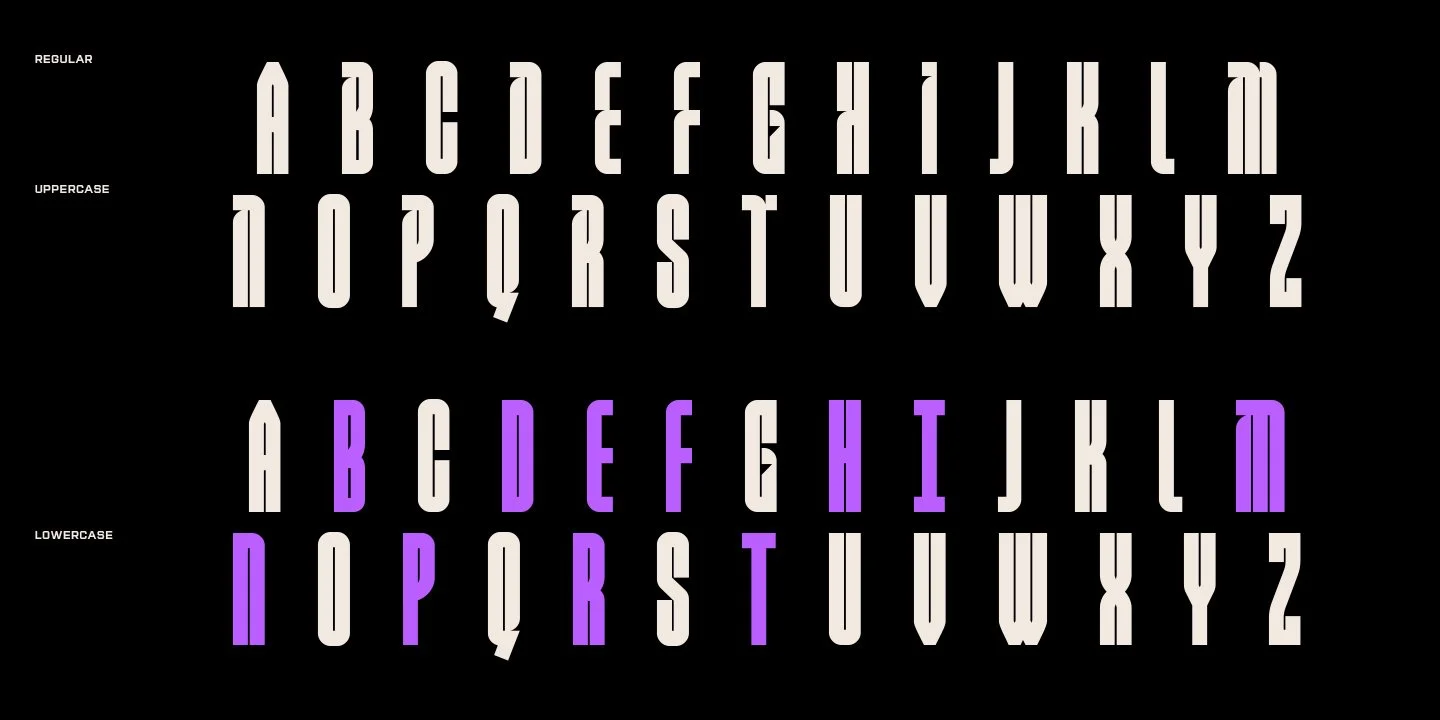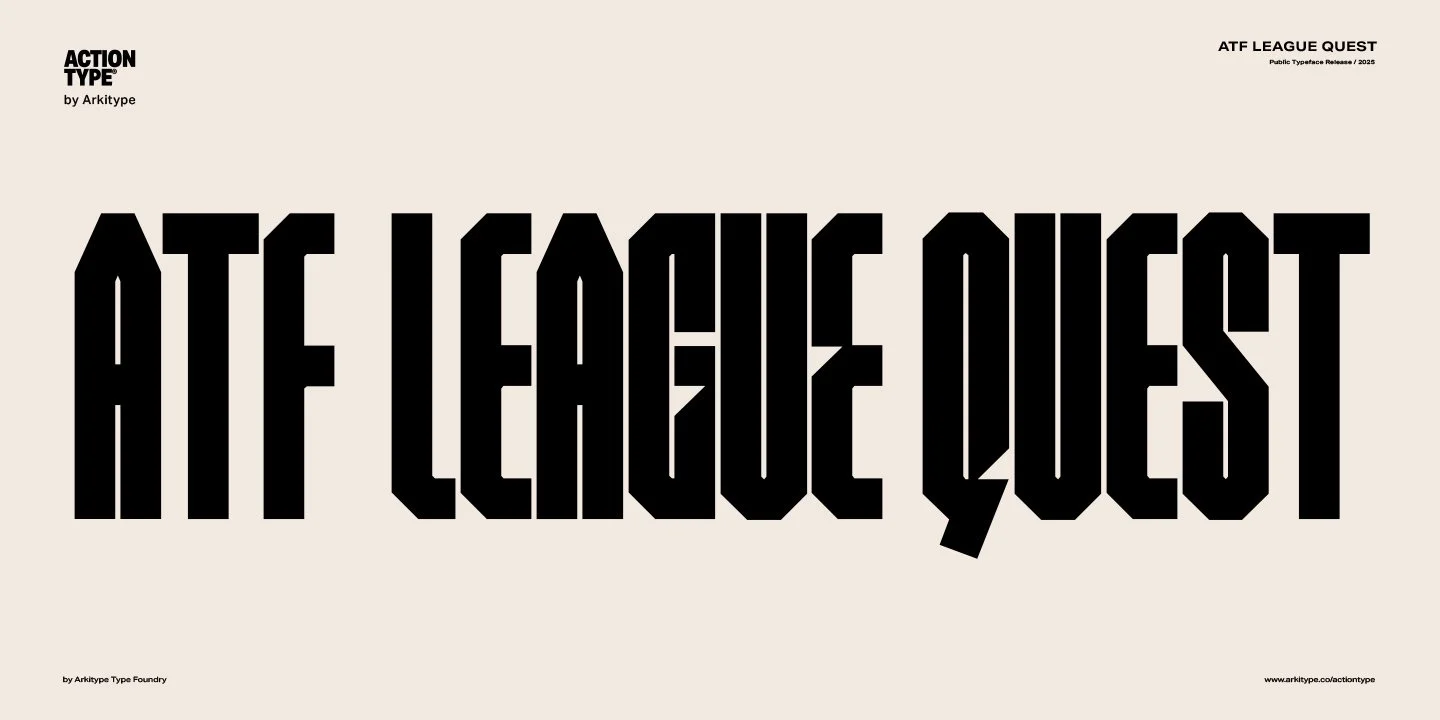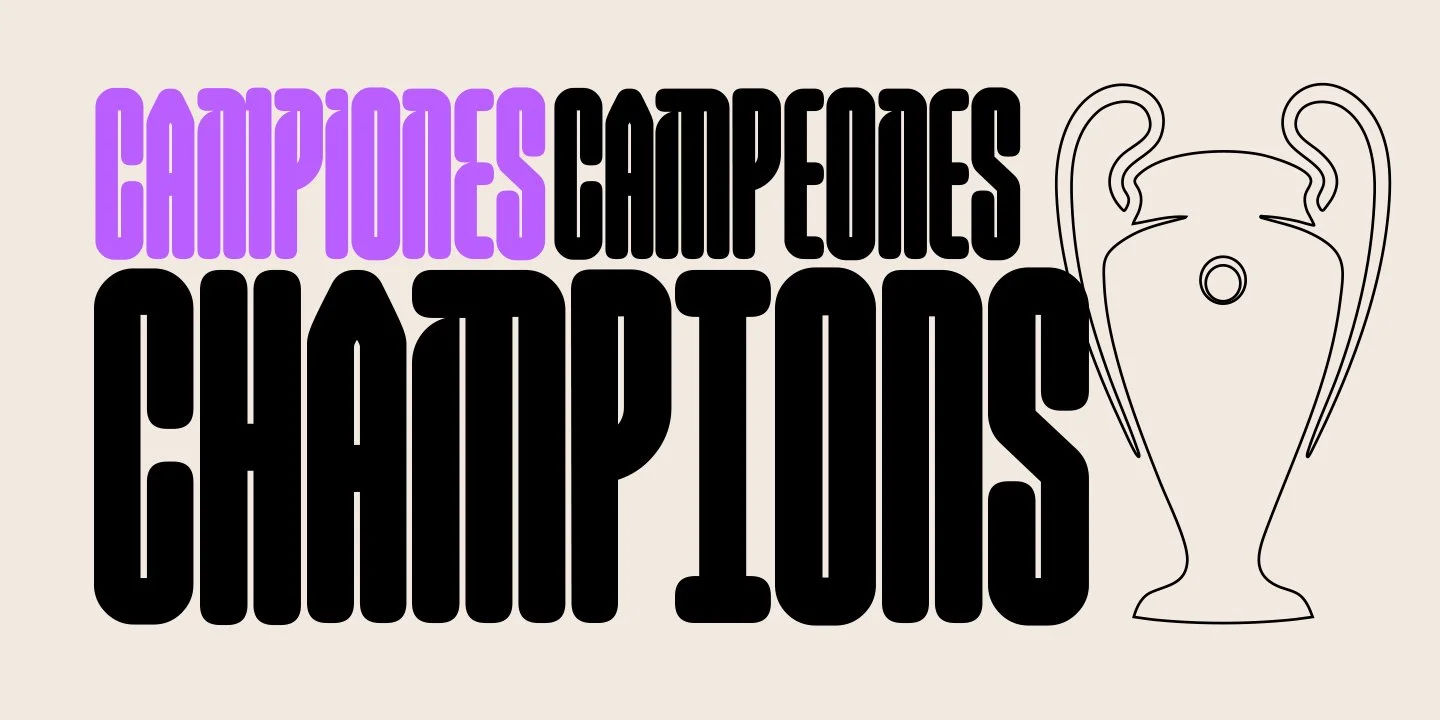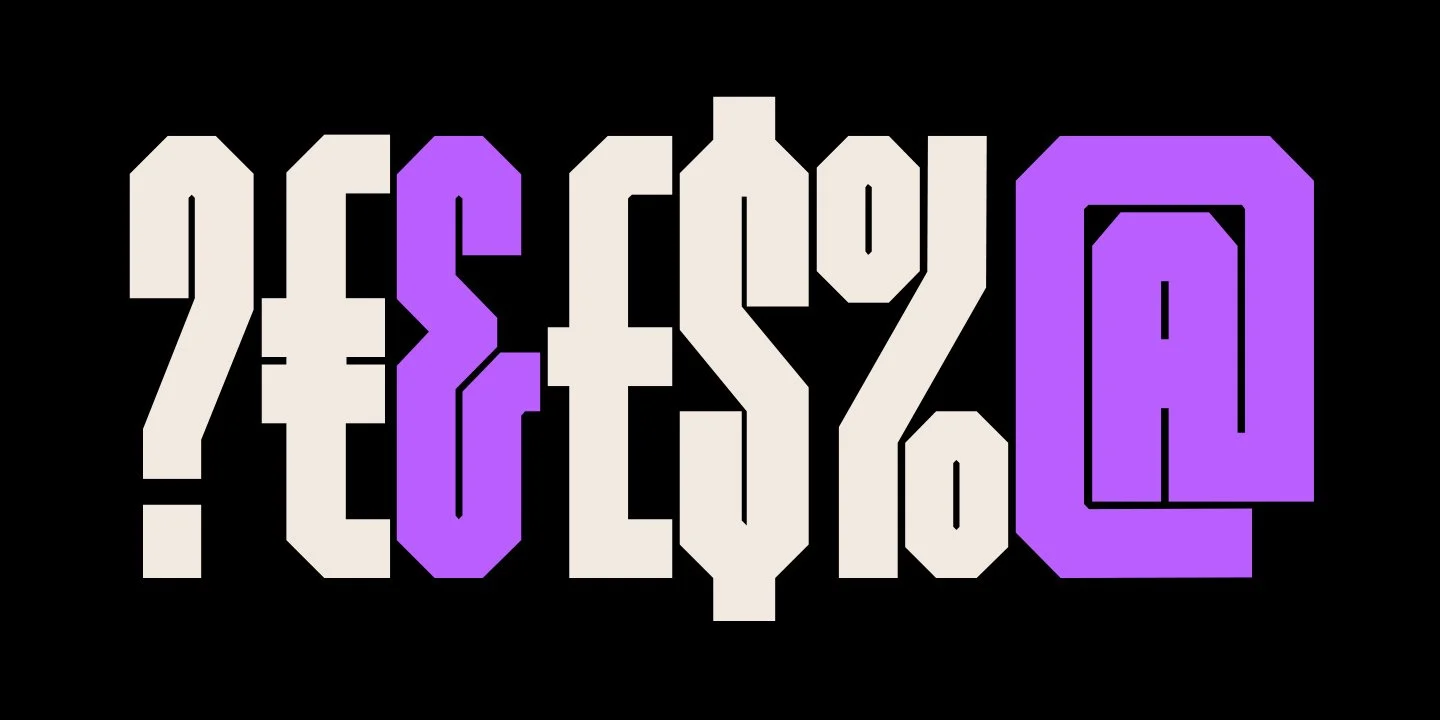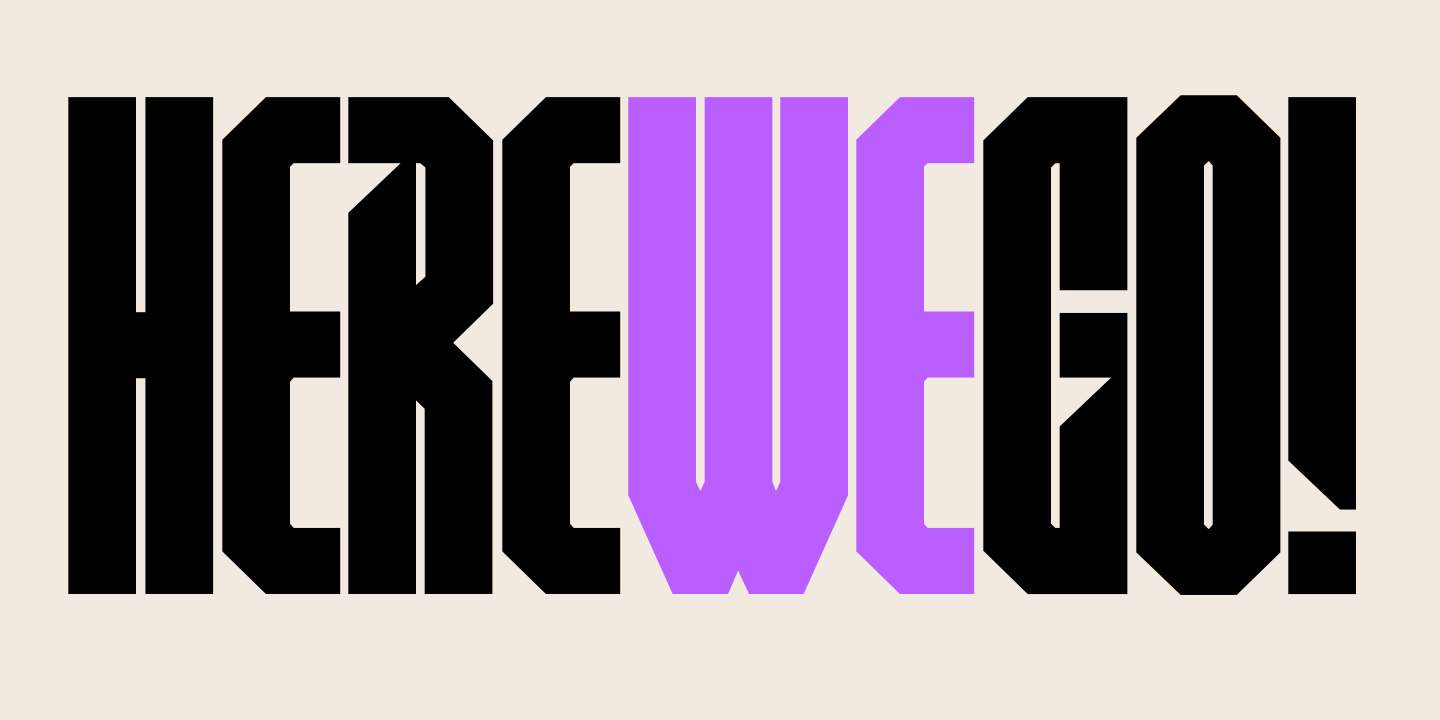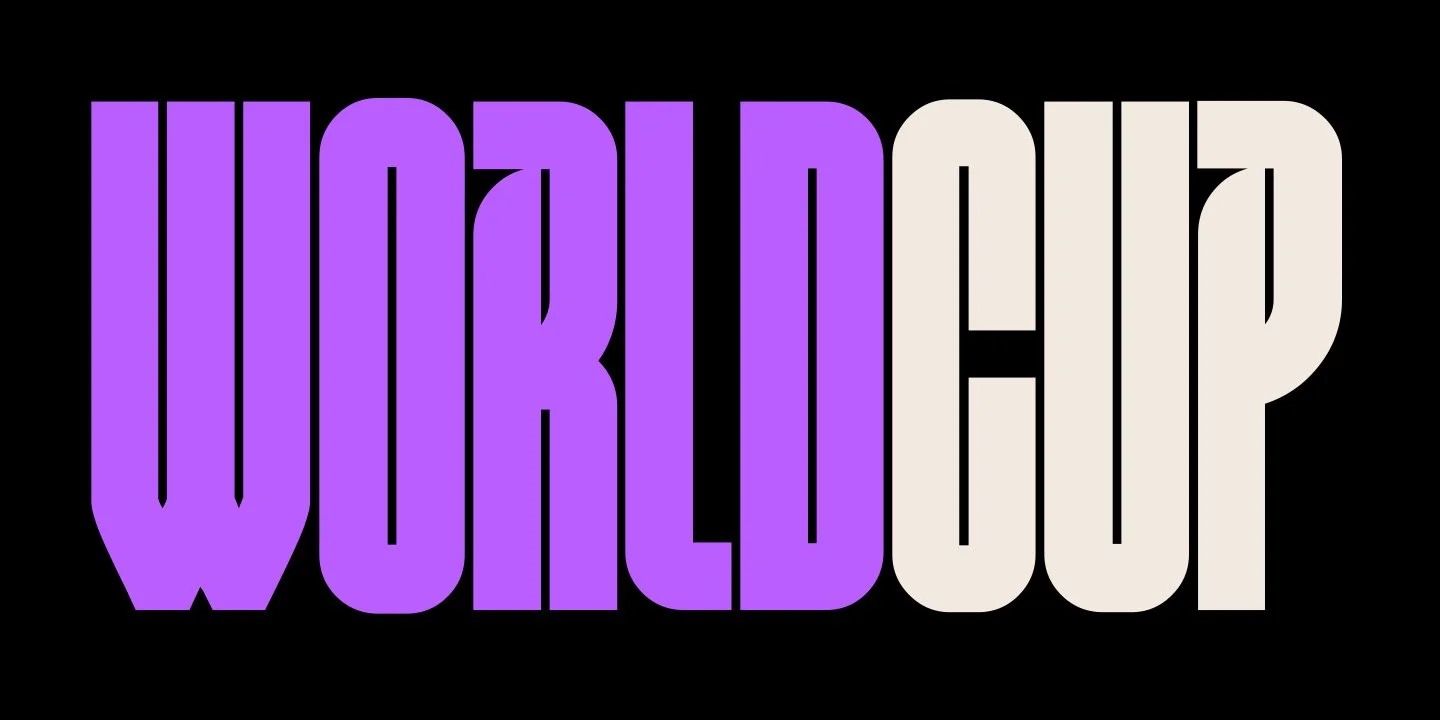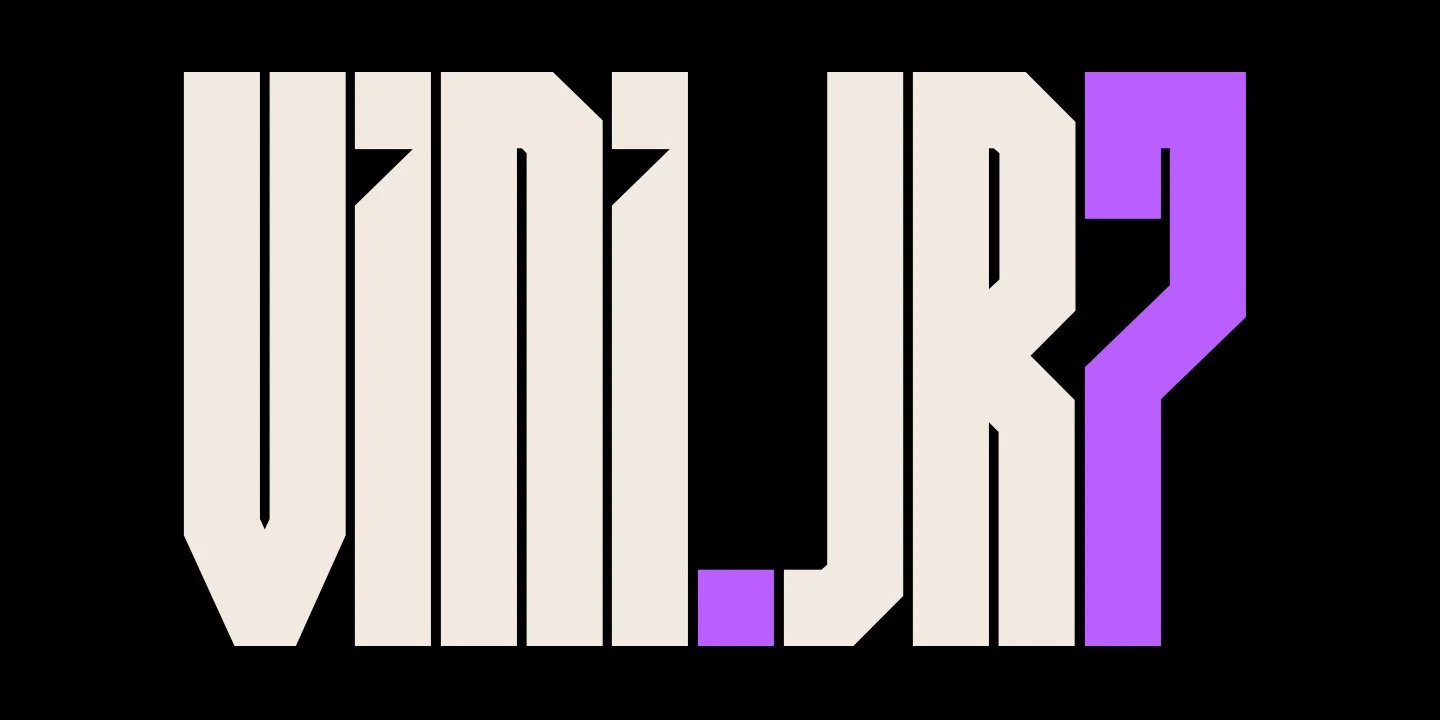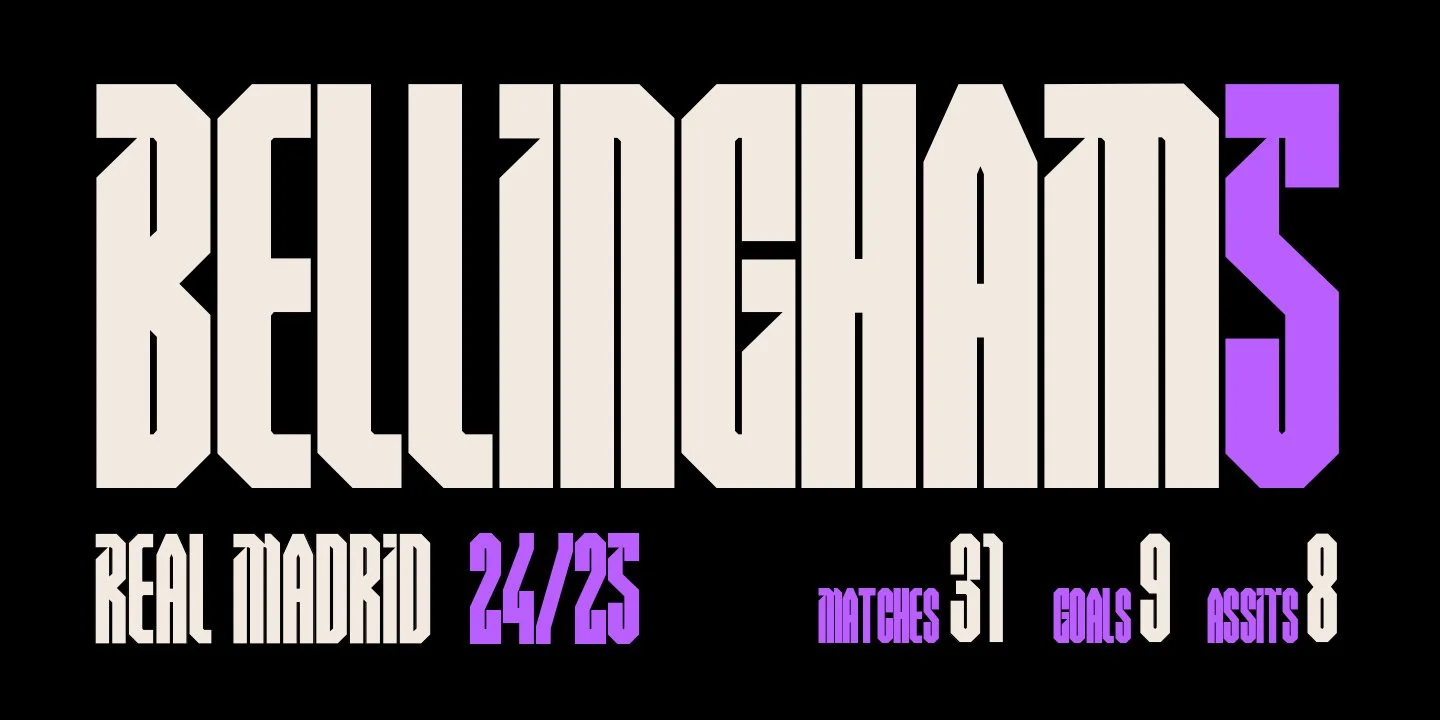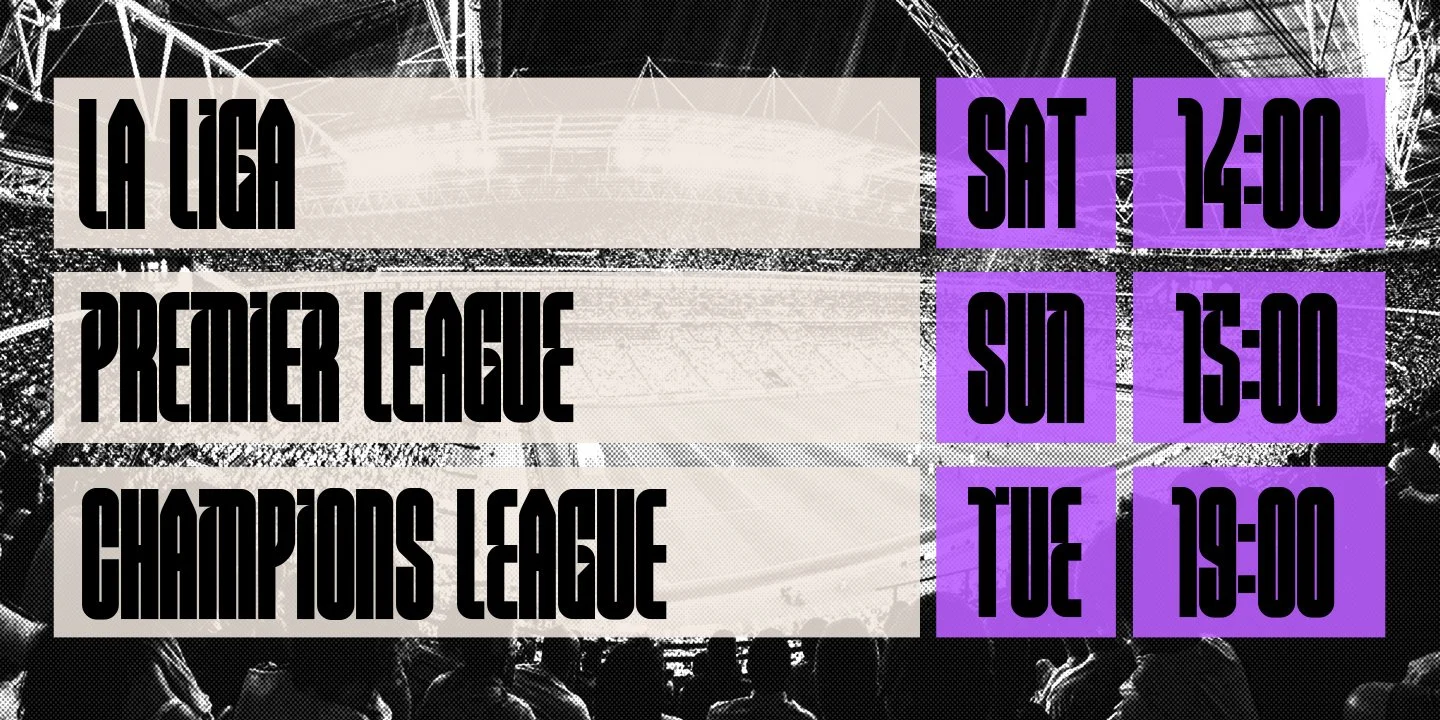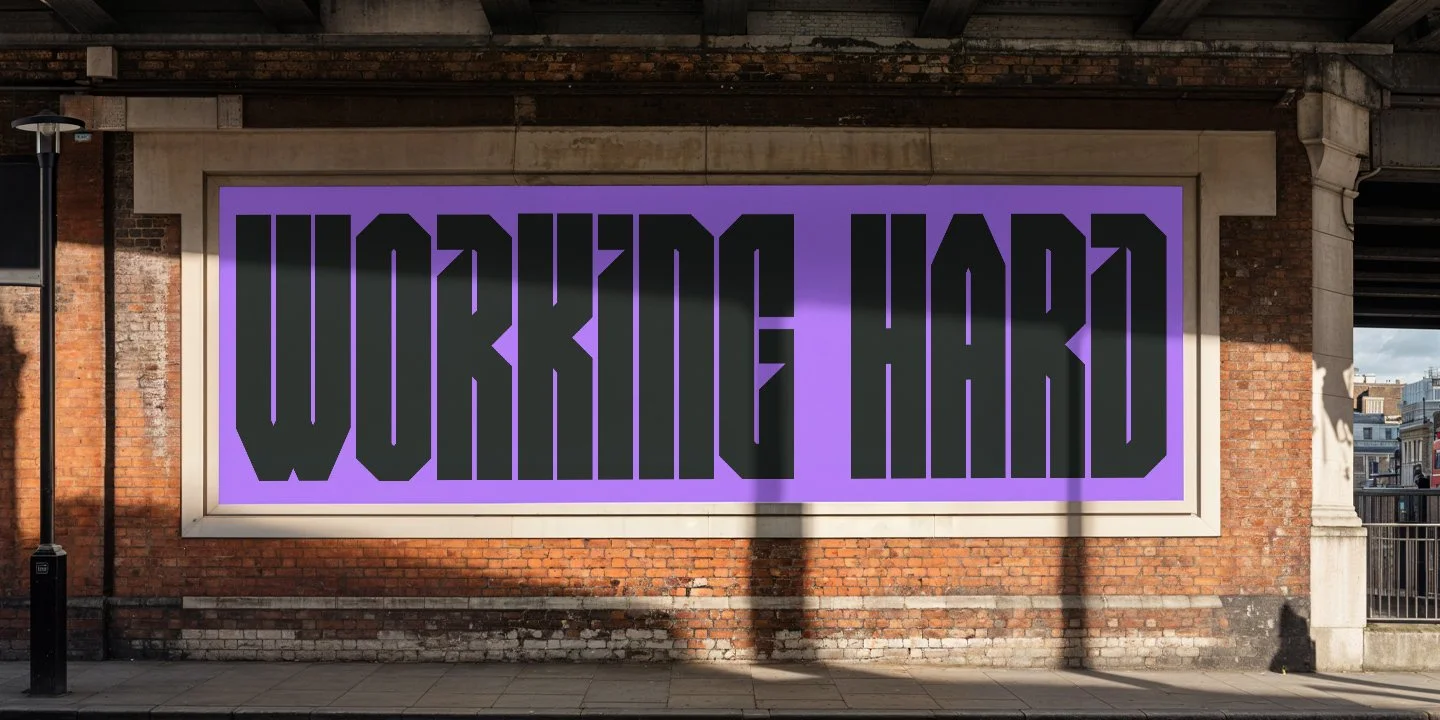
Unleash the Spirit of the Game with ATF League Quest. Introducing ATF League Quest, the typeface crafted to capture the raw energy, passion, and triumph of the beautiful game. Bold & Dynamic Style: Inspired by classic football aesthetics, League Quest features a powerful, condensed design with sharp angles and a commanding presence. Discover creative flexibility by using Case sensitive alternates.
Whether you're designing for a stadium screen or a social media graphic, ATF League Quest maintains its impact and readability across various sizes and applications, ensuring your message always hits the back of the net. Create iconic identities for clubs, leagues, and fan groups, design electrifying posters, flyers, and digital ads for upcoming games, tournaments, and events. Merchandise & Apparel, broadcast & digital media.
Its a powerful, flexible display typeface.